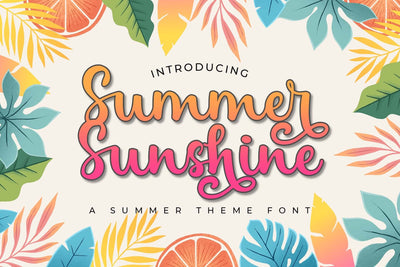
Summer Sunshine
Summer Sunshine is a sweet and adorable handwritten font. This versatile font has a wide spectrum of applications ranging from greeting cards to headlines and is guaranteed to add a neat and natural feel to your next project!